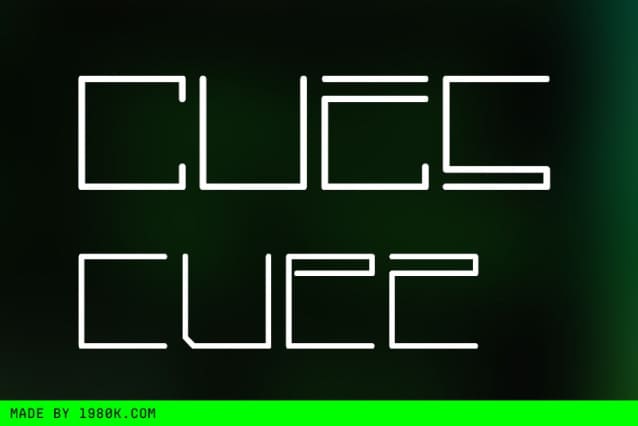
Cuez Ver7 Font is a futuristic font inspired by the visual of technology that is found in sports logos, techno design, Sci-Fi movies, games, and gadgets. It is perfect for logos, labels, posters, packaging, books, movies, presentations, games, and much more!
Cuez Ver7 Font